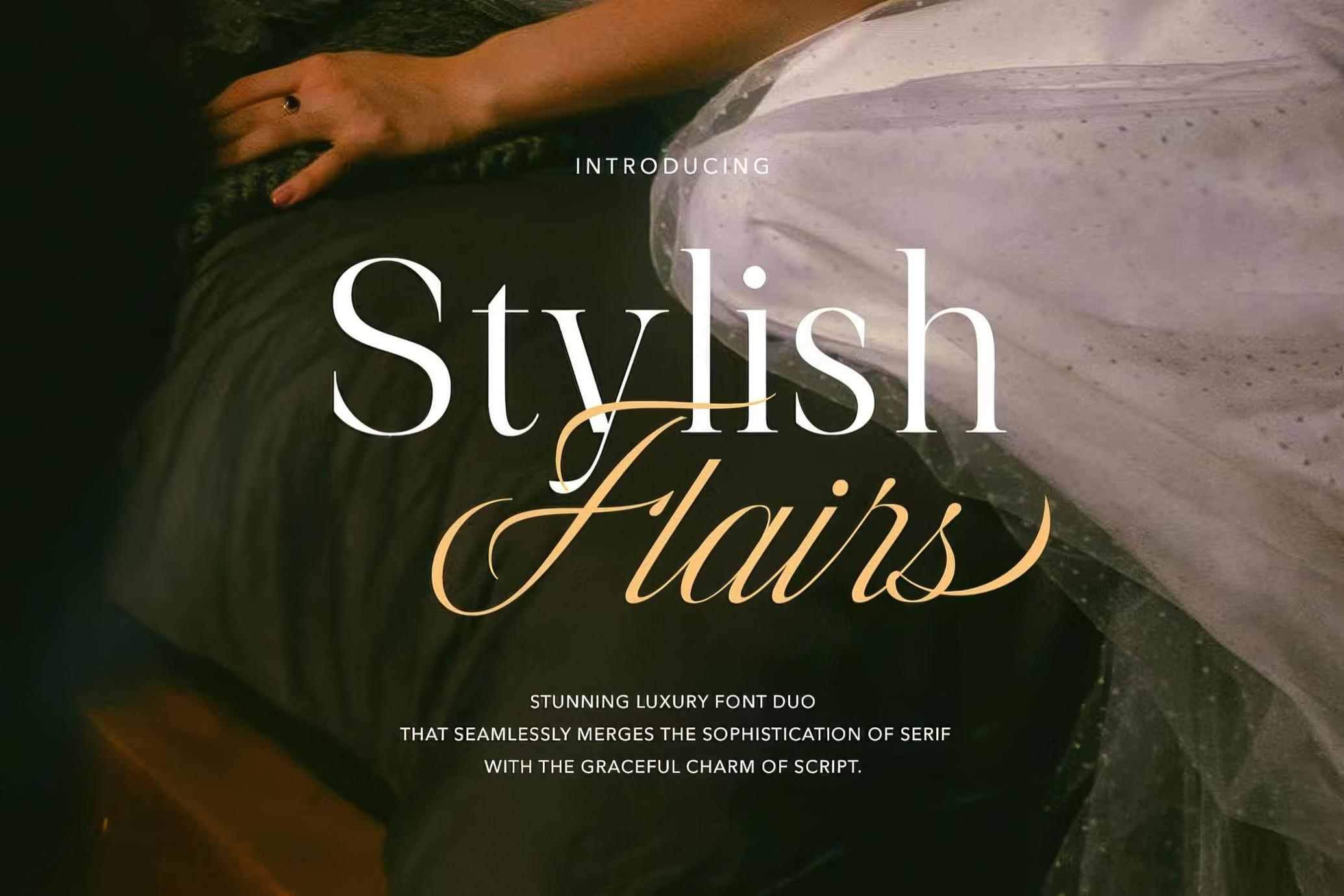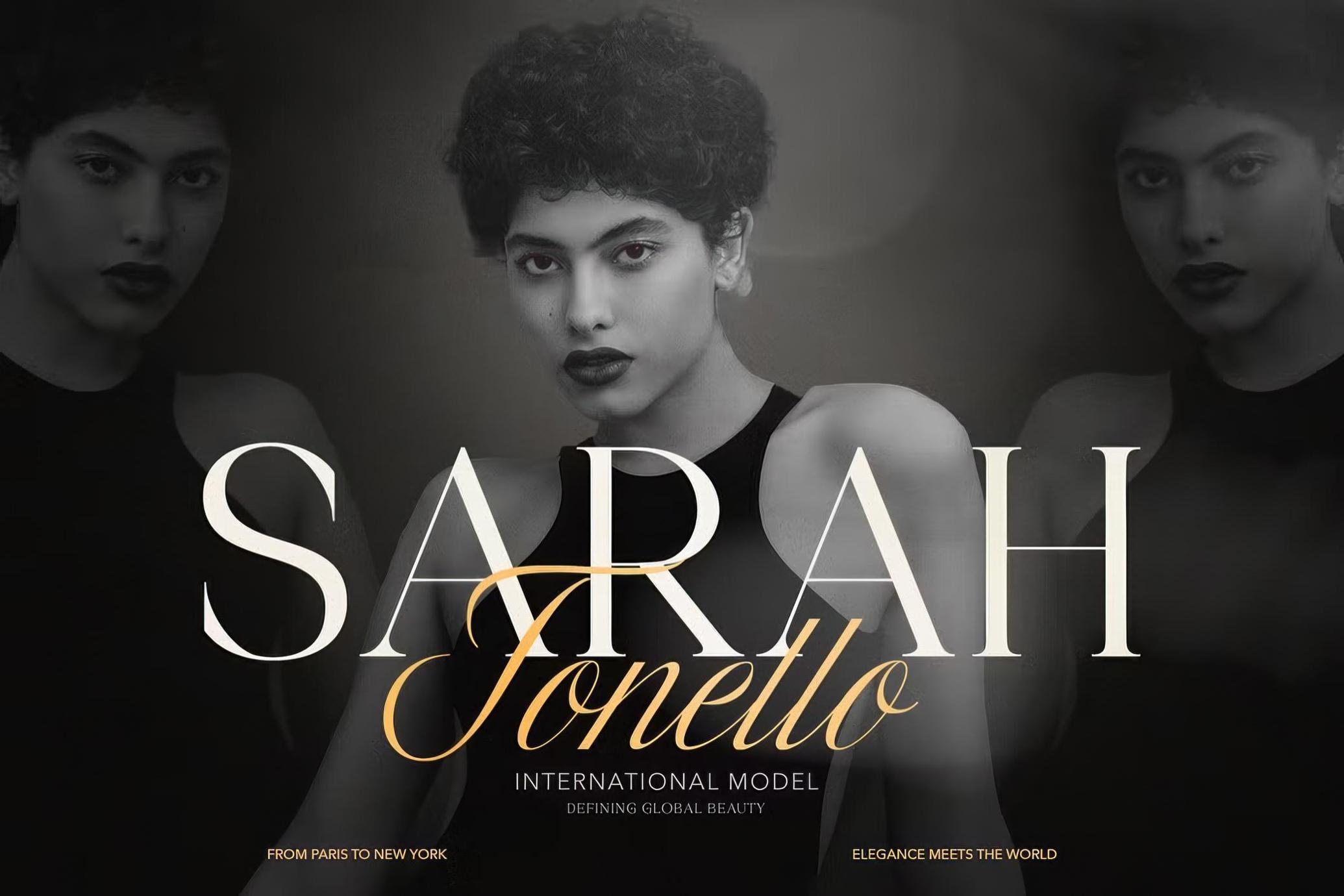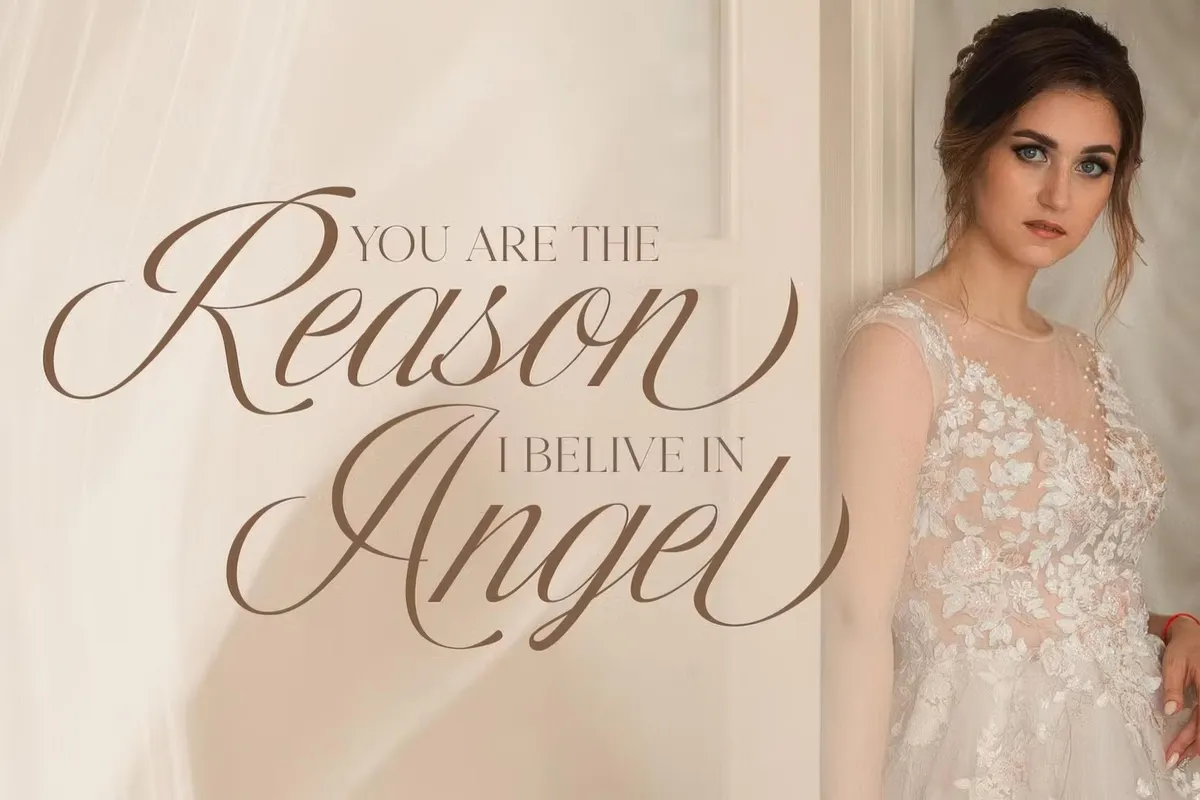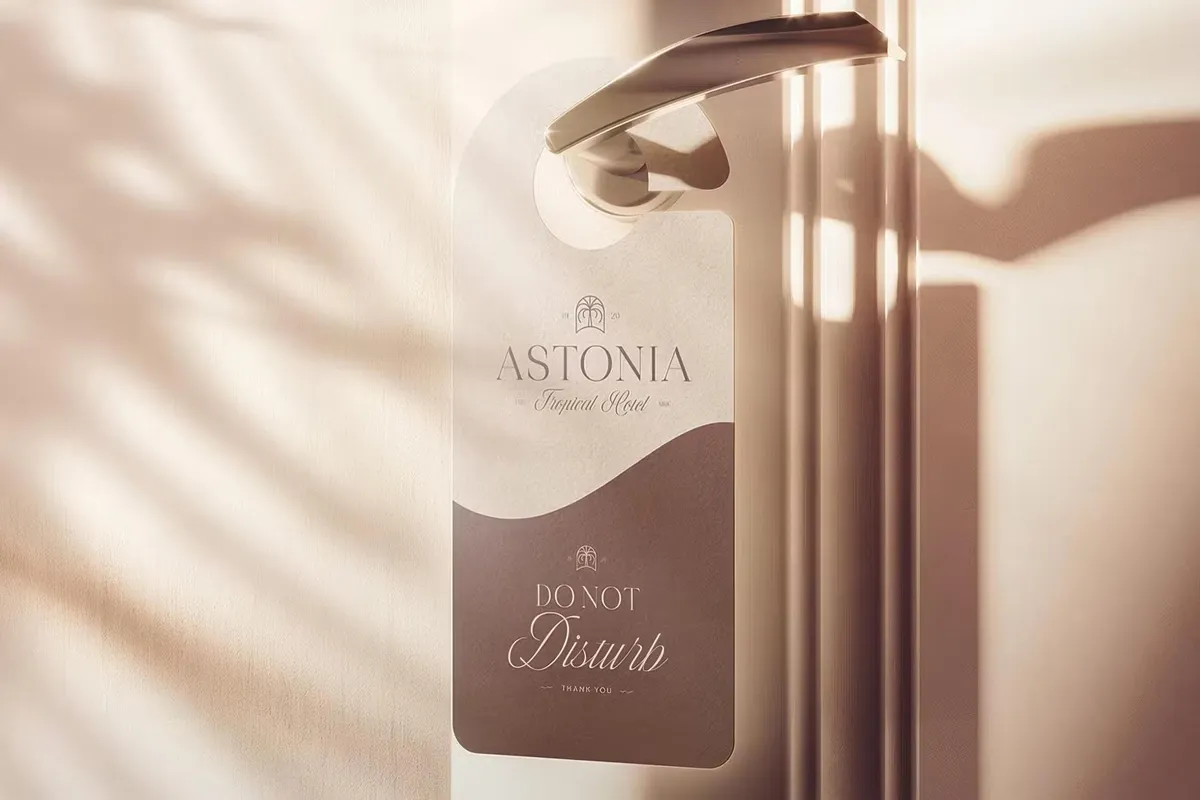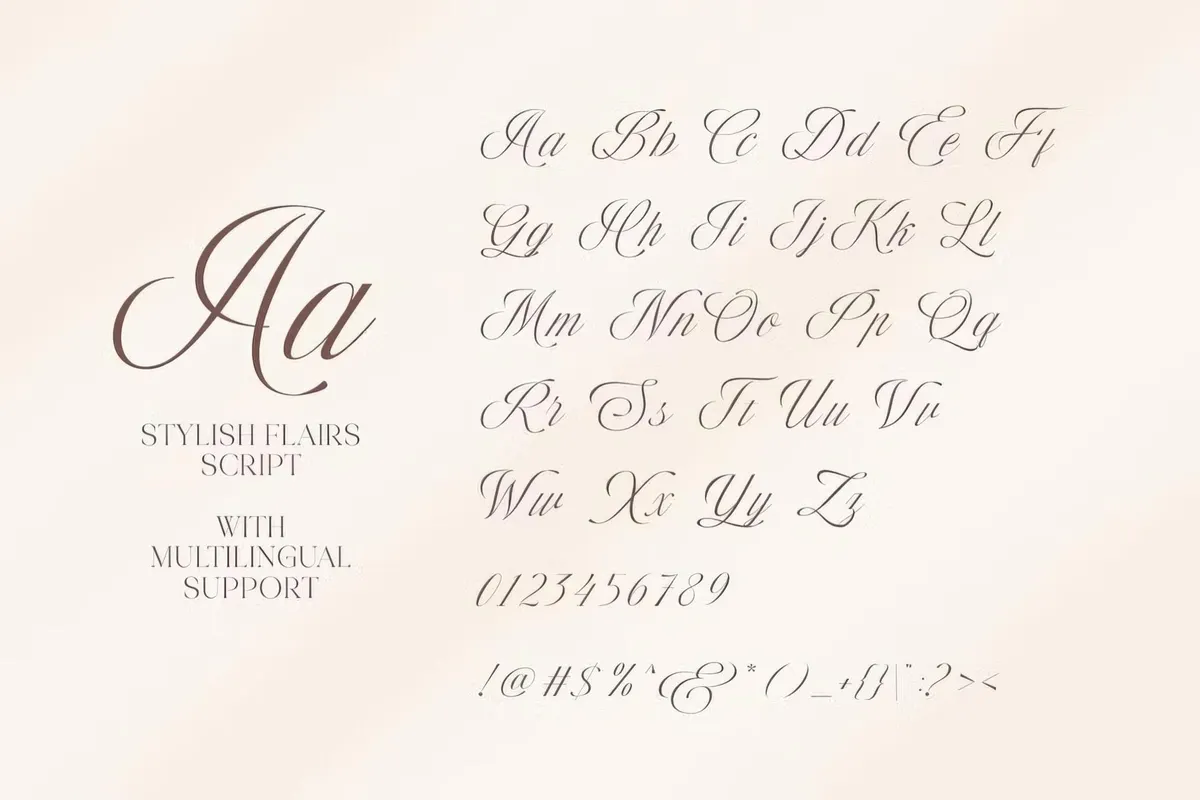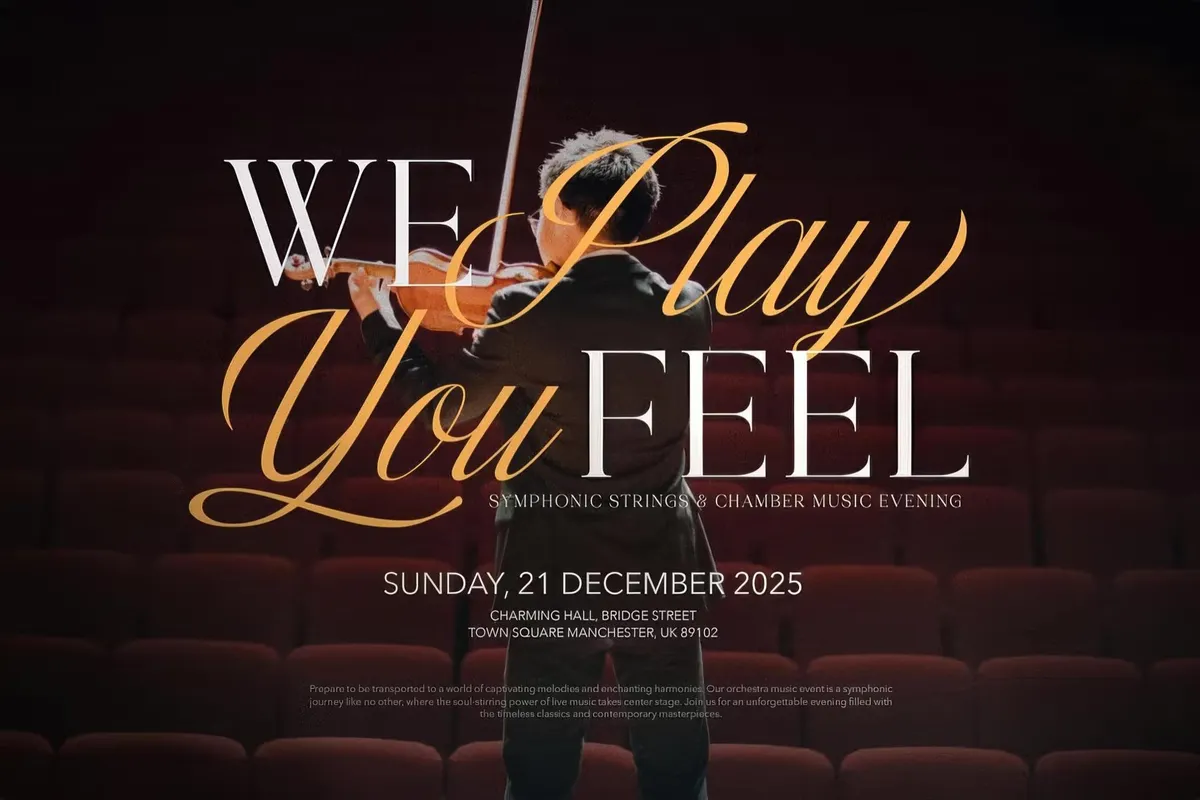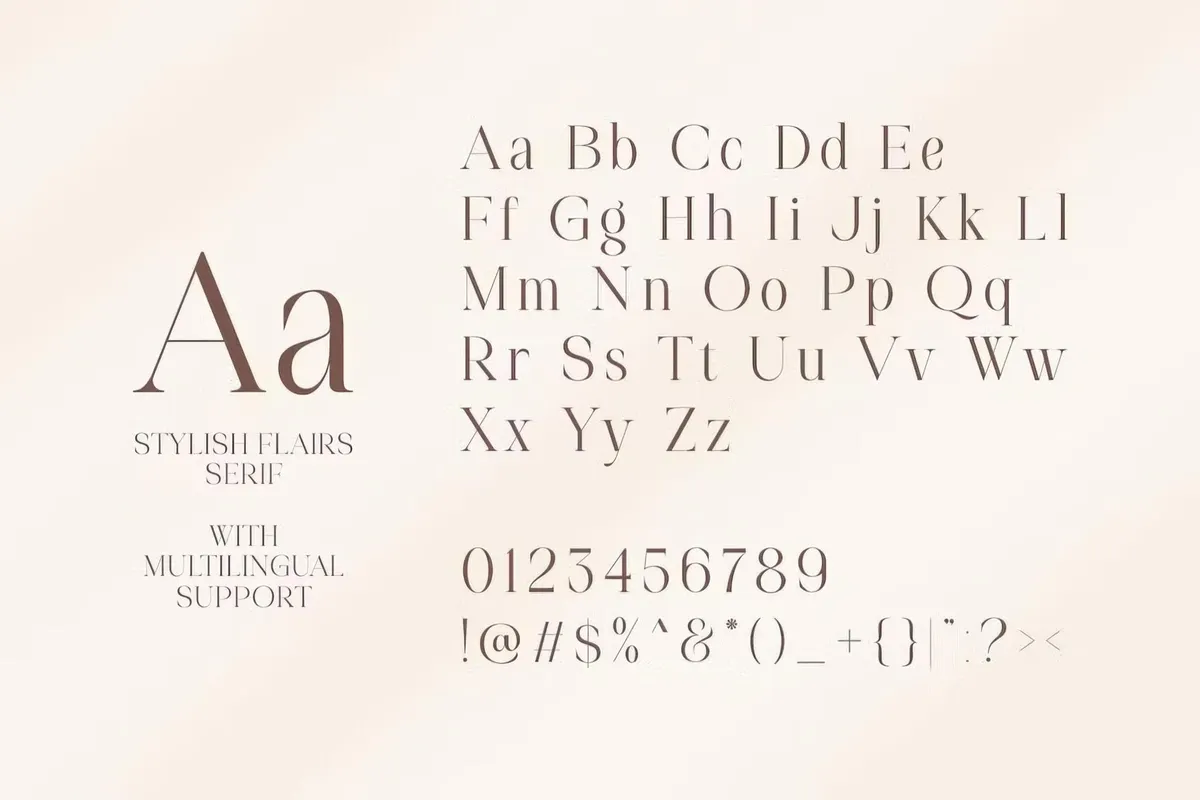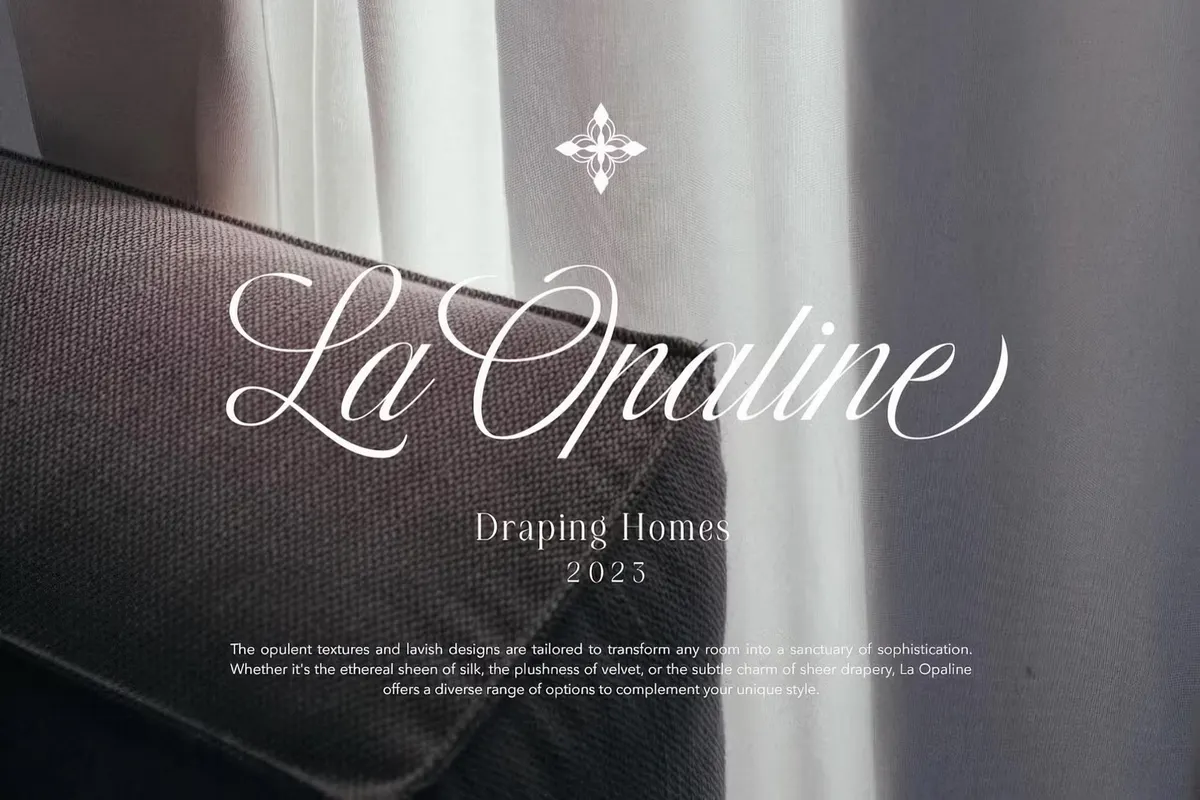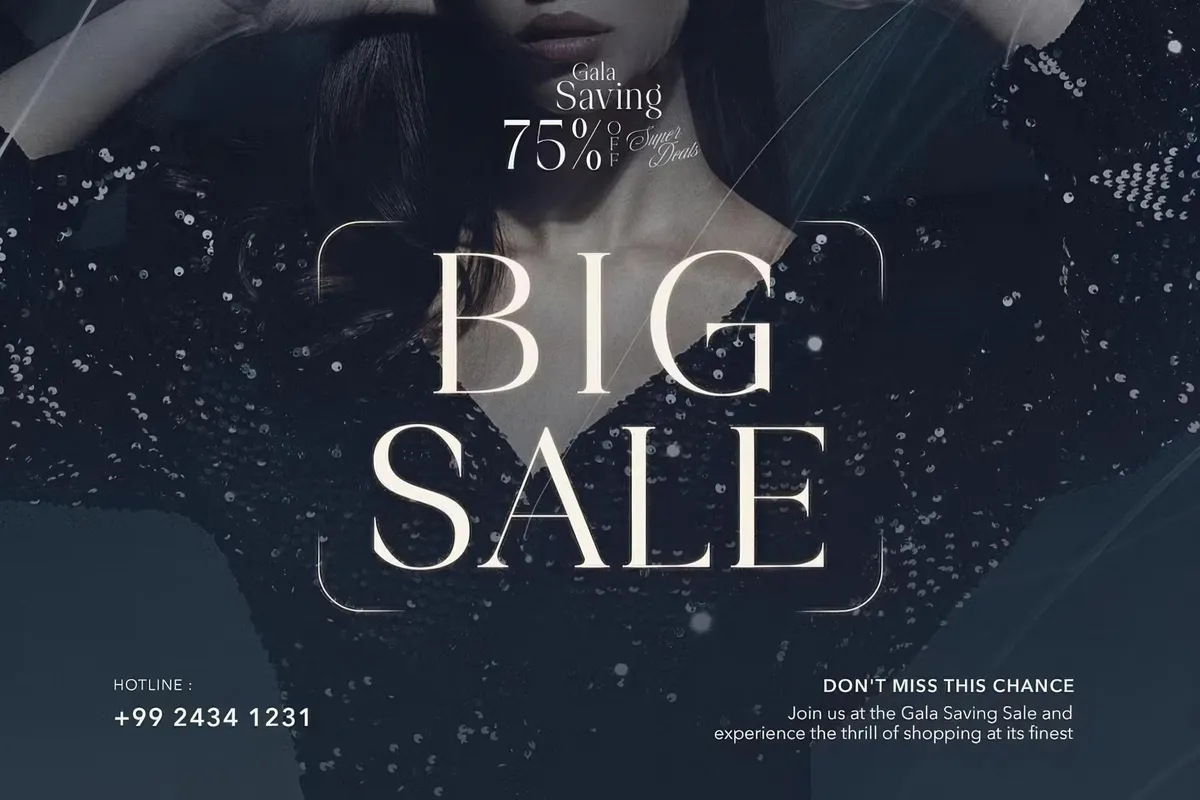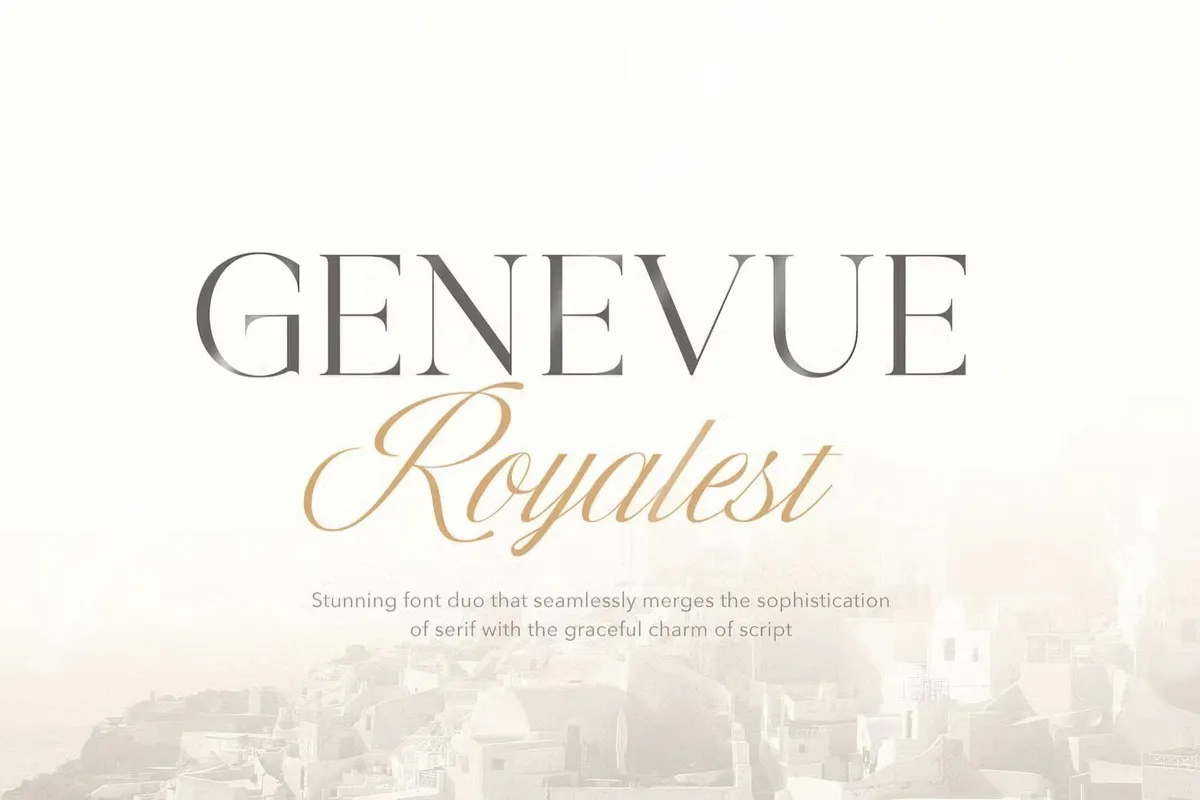
Stylish Flairs — Luxury Font Duo
Stylish Flairs is luxury font duo designed to make an impression. This pairing blends the poised refinement of a high-contrast serif with the fluid grace of an expressive script, creating a perfect harmony between classic and contemporary aesthetics. Whether used together or separately, these fonts become ideal for branding, packaging, wedding invitations, and editorial design.
Every detail is crafted for maximum impact, with elegant ligatures, refined letterforms, and smooth curves that adapt to various creative applications. Also, Stylish Flairs offers **full multilingual support and OpenType features. **